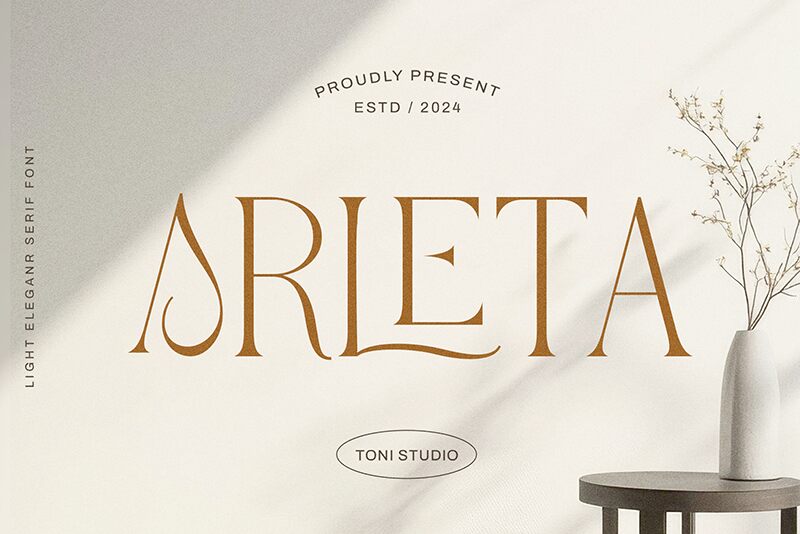
Arleta font is designed by ToniStudio with elegance and refinement in mind. This unique serif font combines sophistication, a modern style, and high-end appeal into one timeless design. It contains distinctive letters filled with details set to help your designs stand out while not going overboard. Grab the attention of your viewer using this remarkable font which has been made available for free.